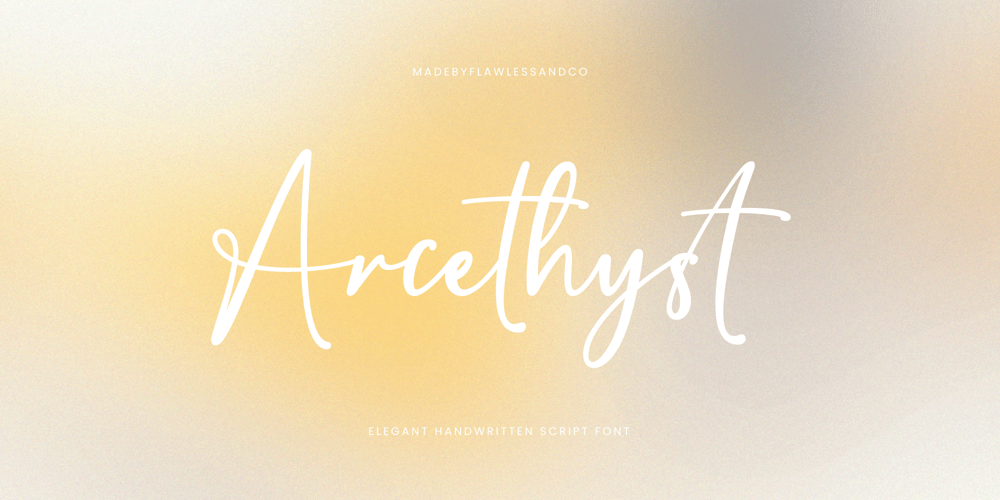
Arcethyst Font Family was designed by Achmad Yani and published by Flawlessandco. Arcethyst contains 1 styles and family package options. Introducing “Arcethyst” an elegant handwritten script font. Indulge in the timeless beauty of “Arcethyst,” an exquisite handwritten script font that exudes elegance and sophistication. With its graceful curves and delicate lines, Arcethyst adds a touch of refined charm to any project, from wedding invitations, and interior design to luxury branding.There’s some connected letters and some alternates that suitable for any graphic designs such as branding materials, t-shirt, print, business cards, logo, poster, t-shirt, photography, quotes .etcThis font support for some multilingual. Also contains uppercase A-Z and lowercase a-z, alternate character, numbers 0-9, and some punctuation.If you need help, just write me! Thanks so much for checking out my shop!